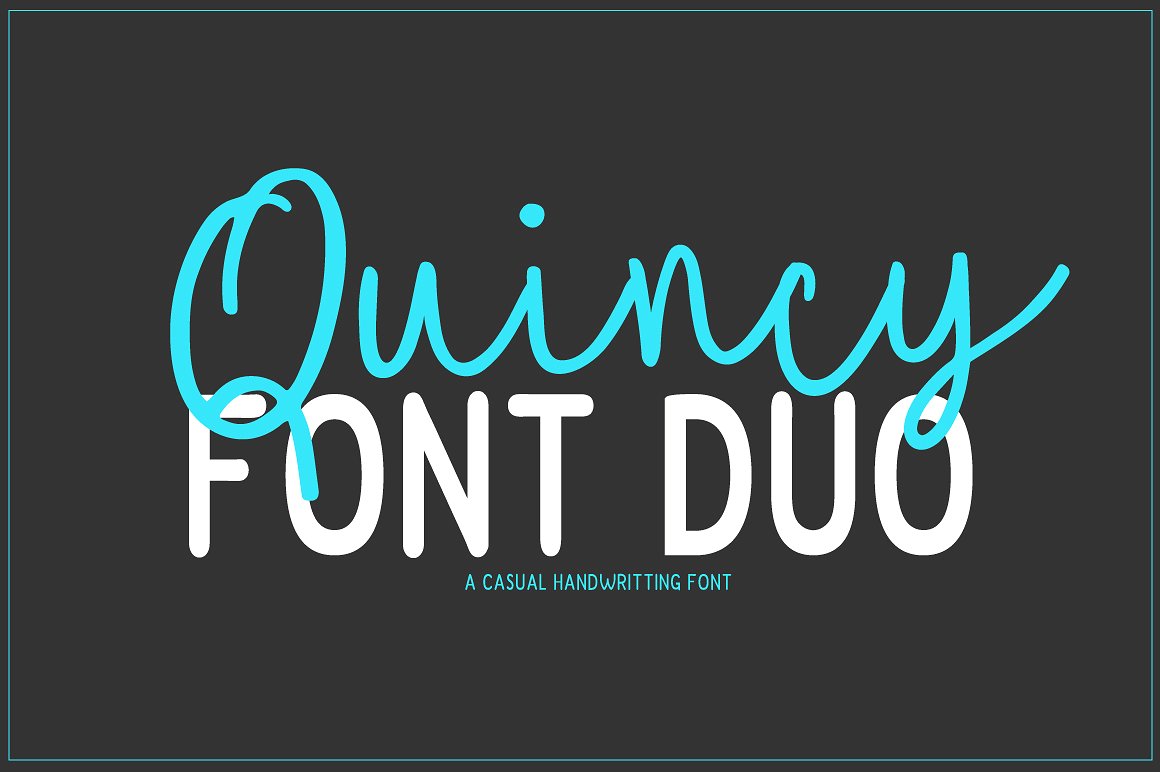
Quincy Font Duo
This font a perfect for wedding invitation or your blog. Also with their help, you can create a logo or beautiful frame for your home. Or just use for your small business, book covers, stationery and more.